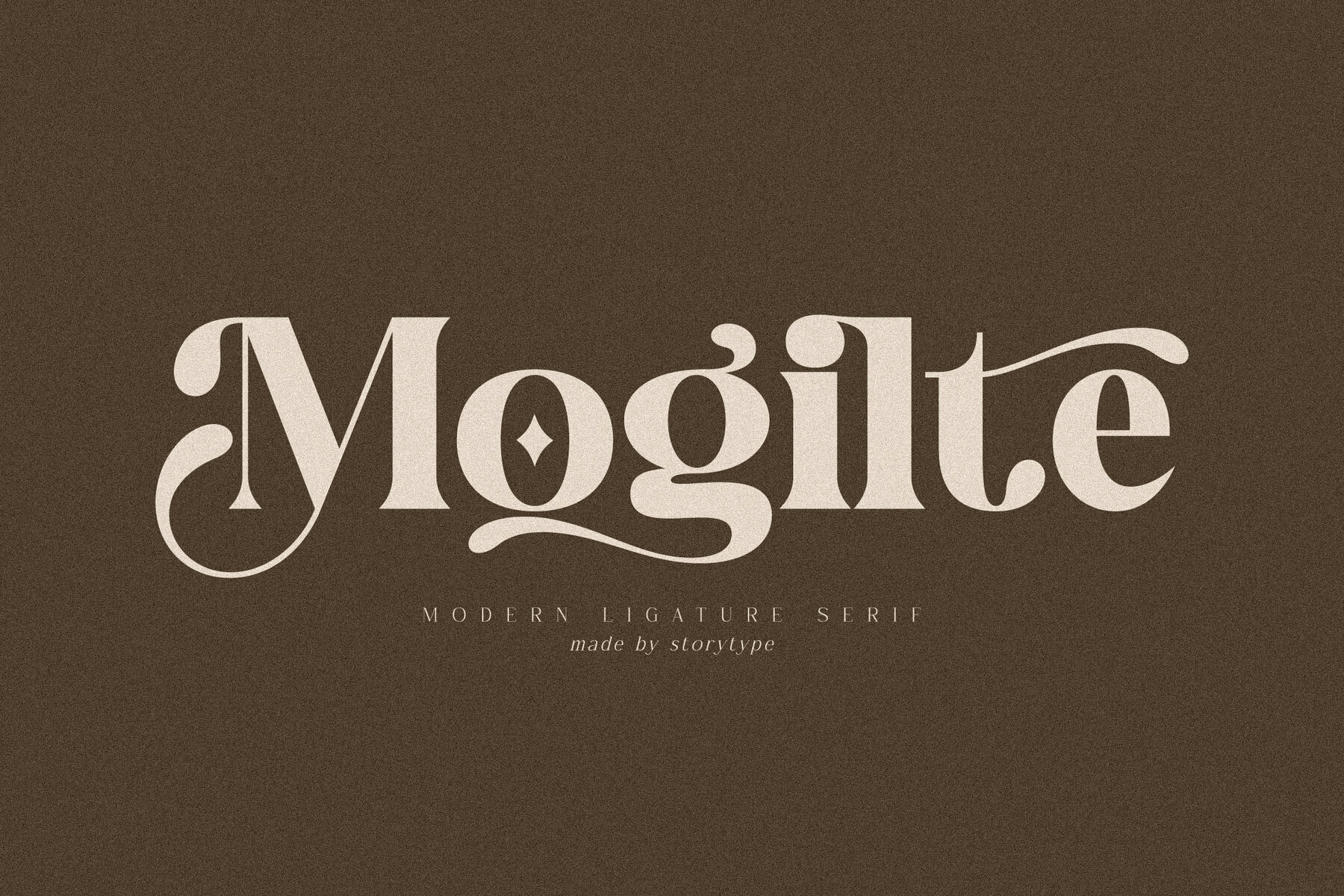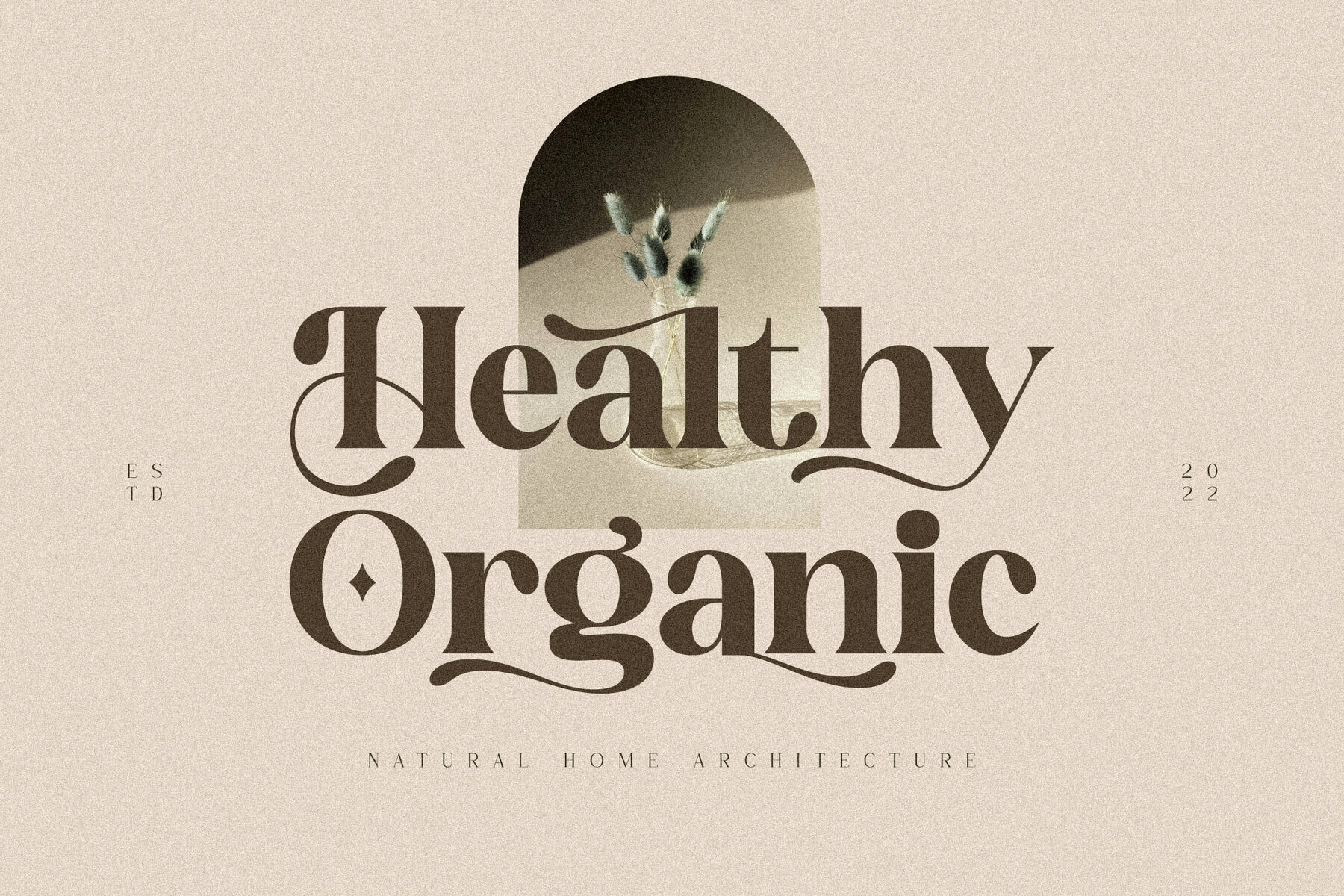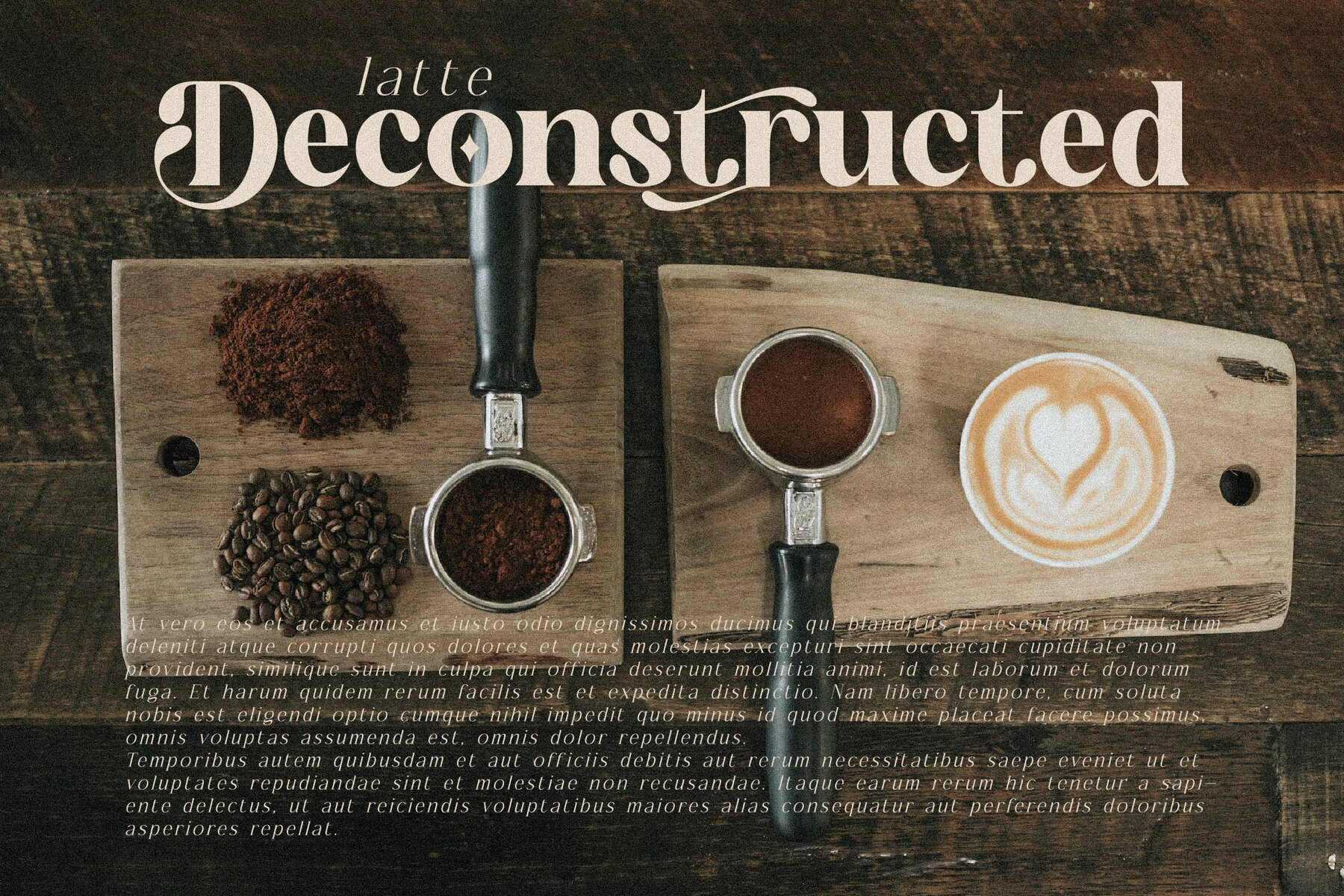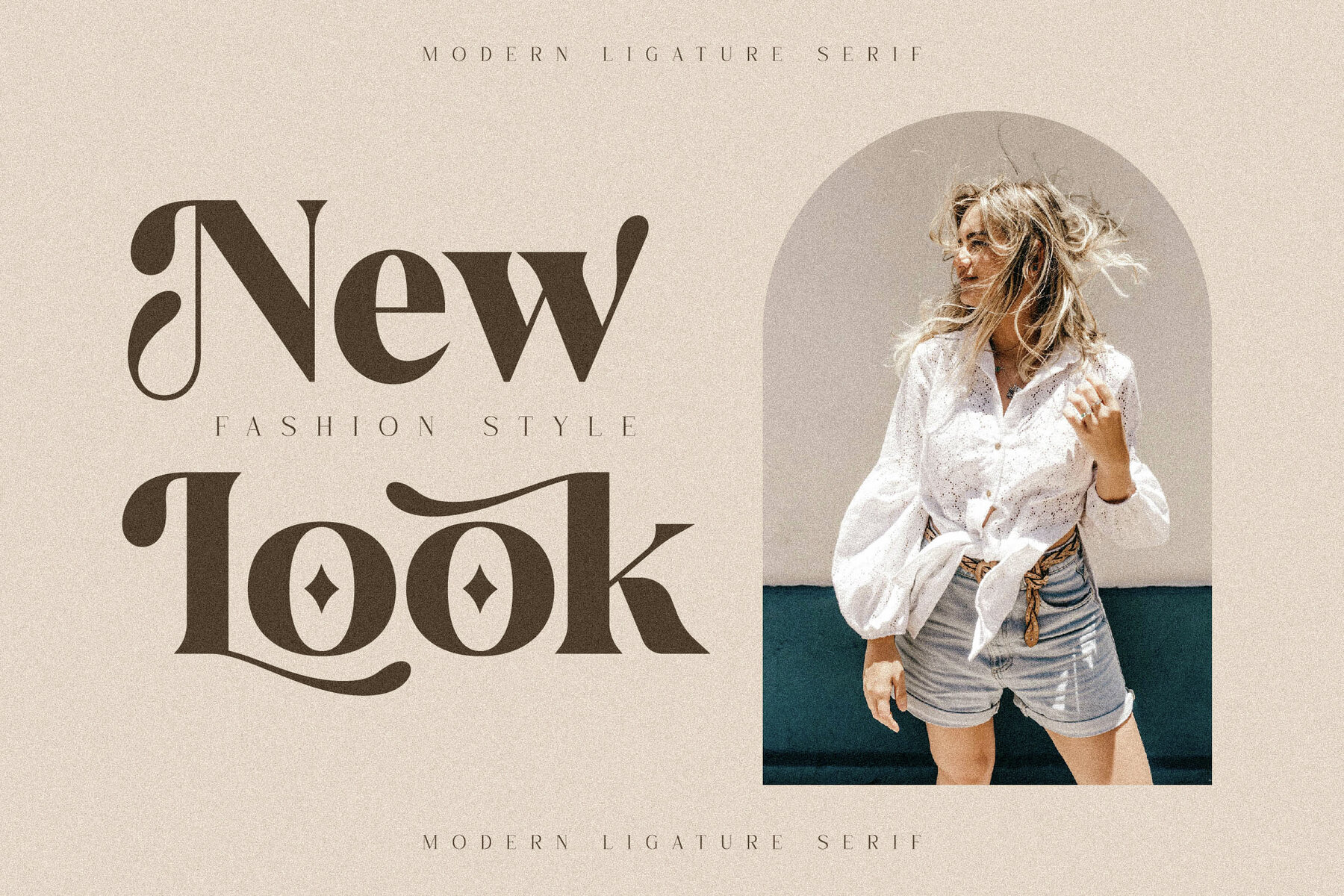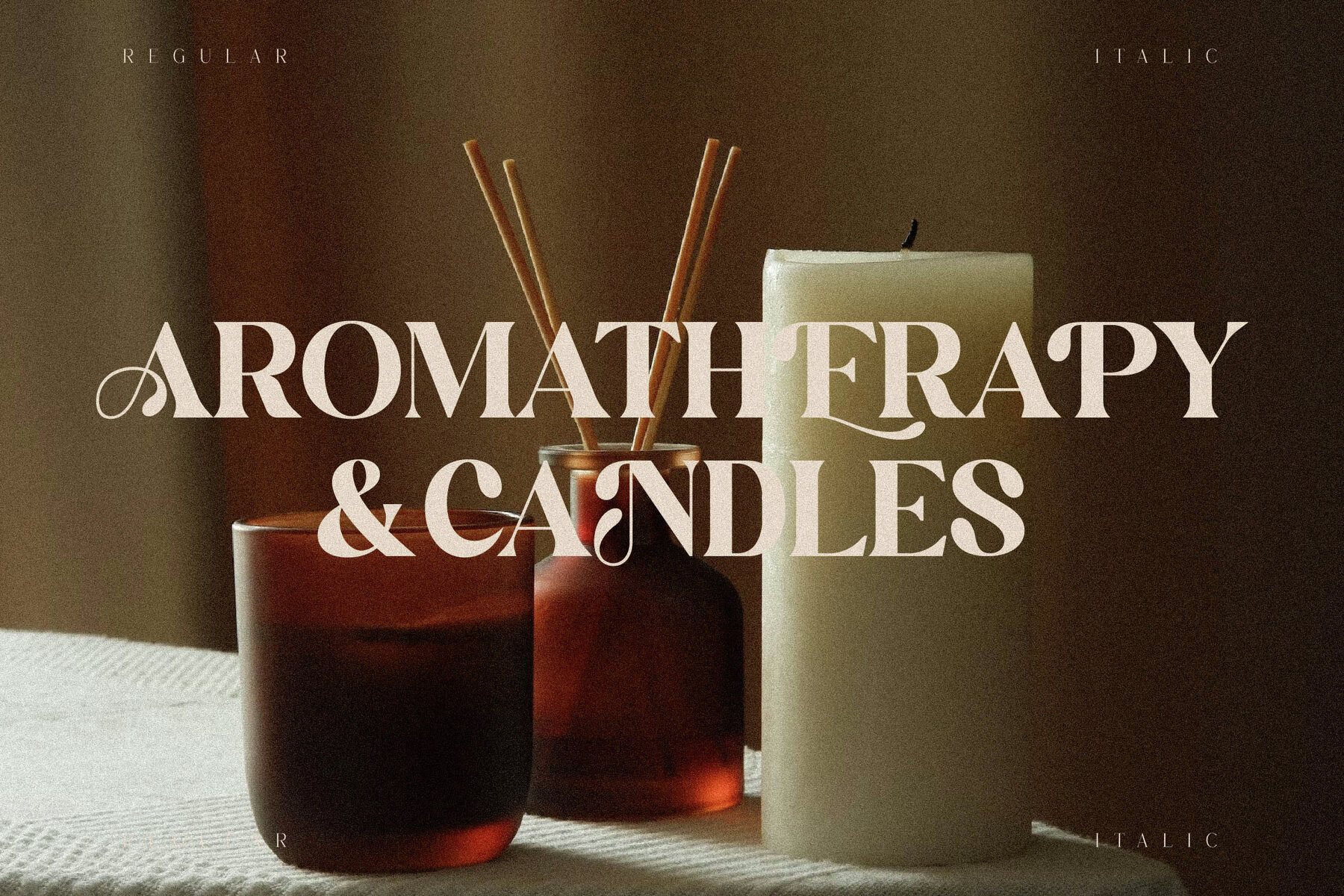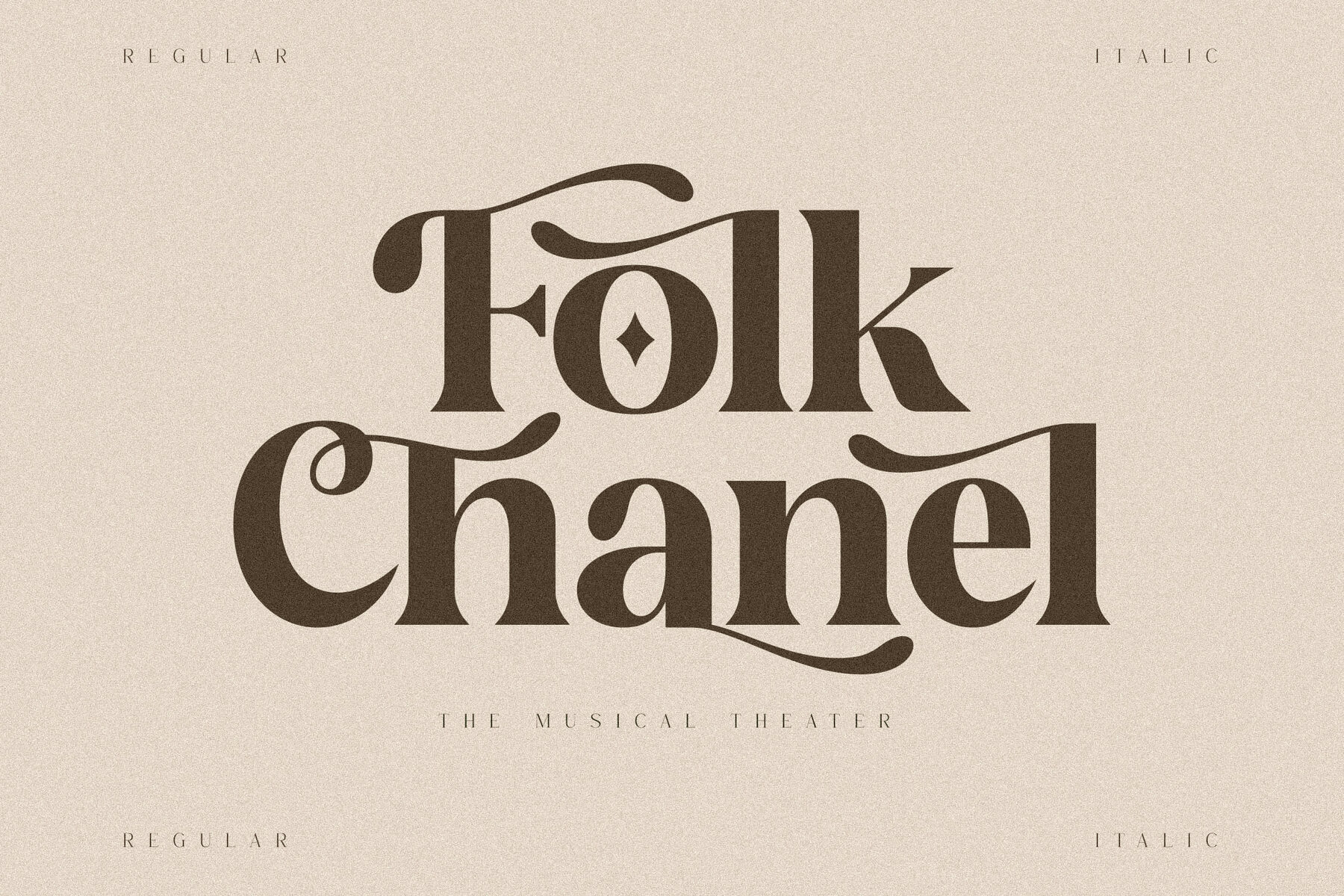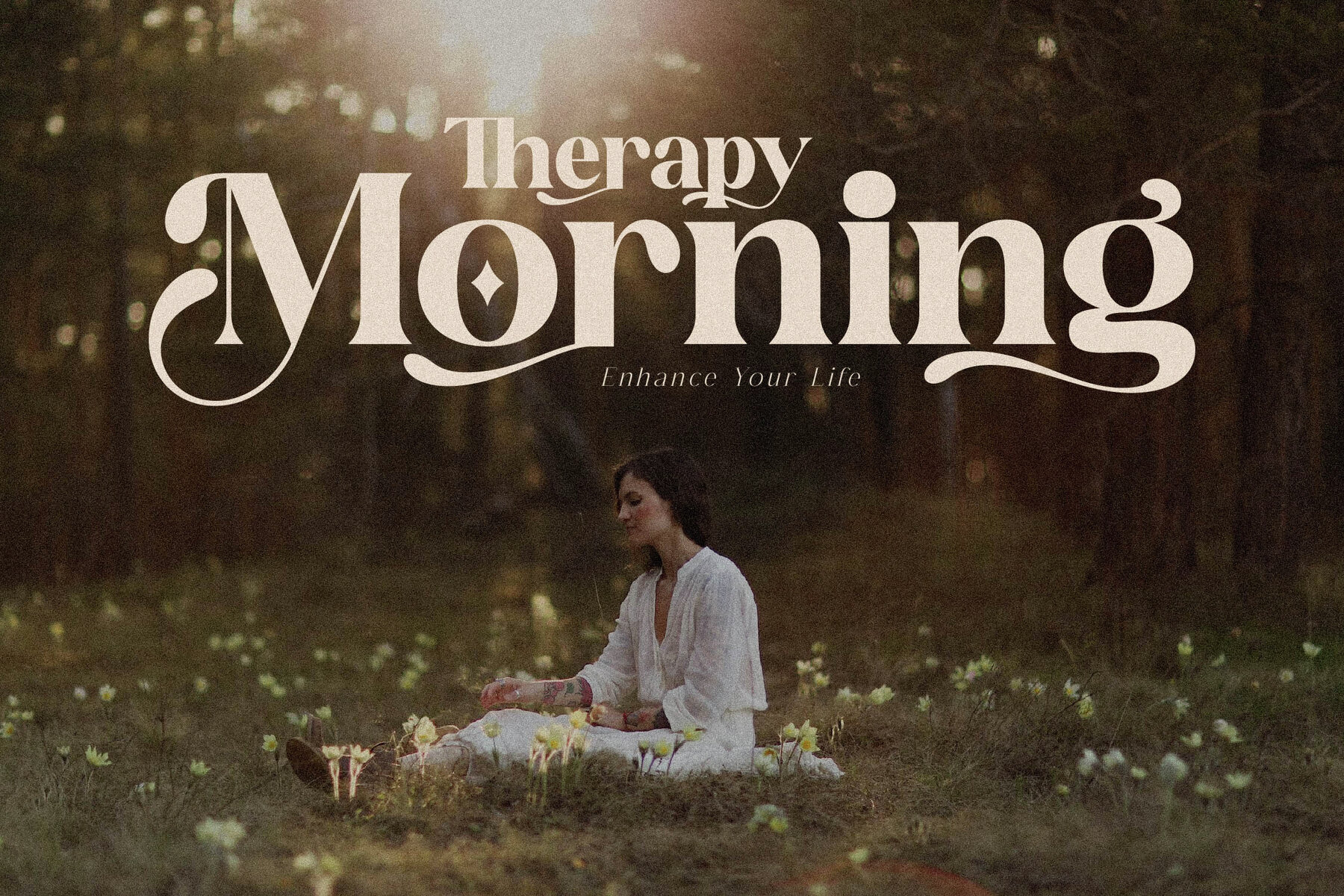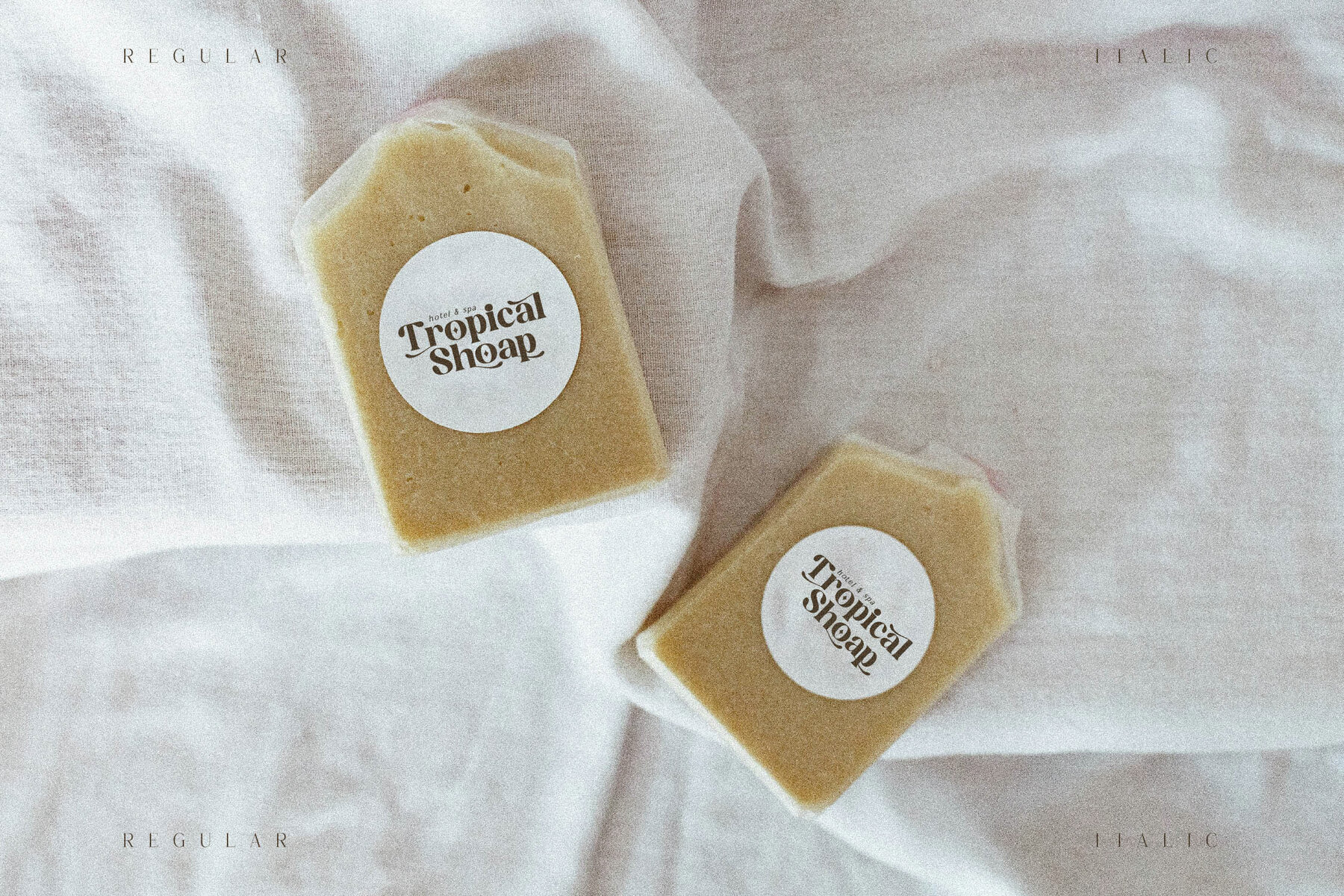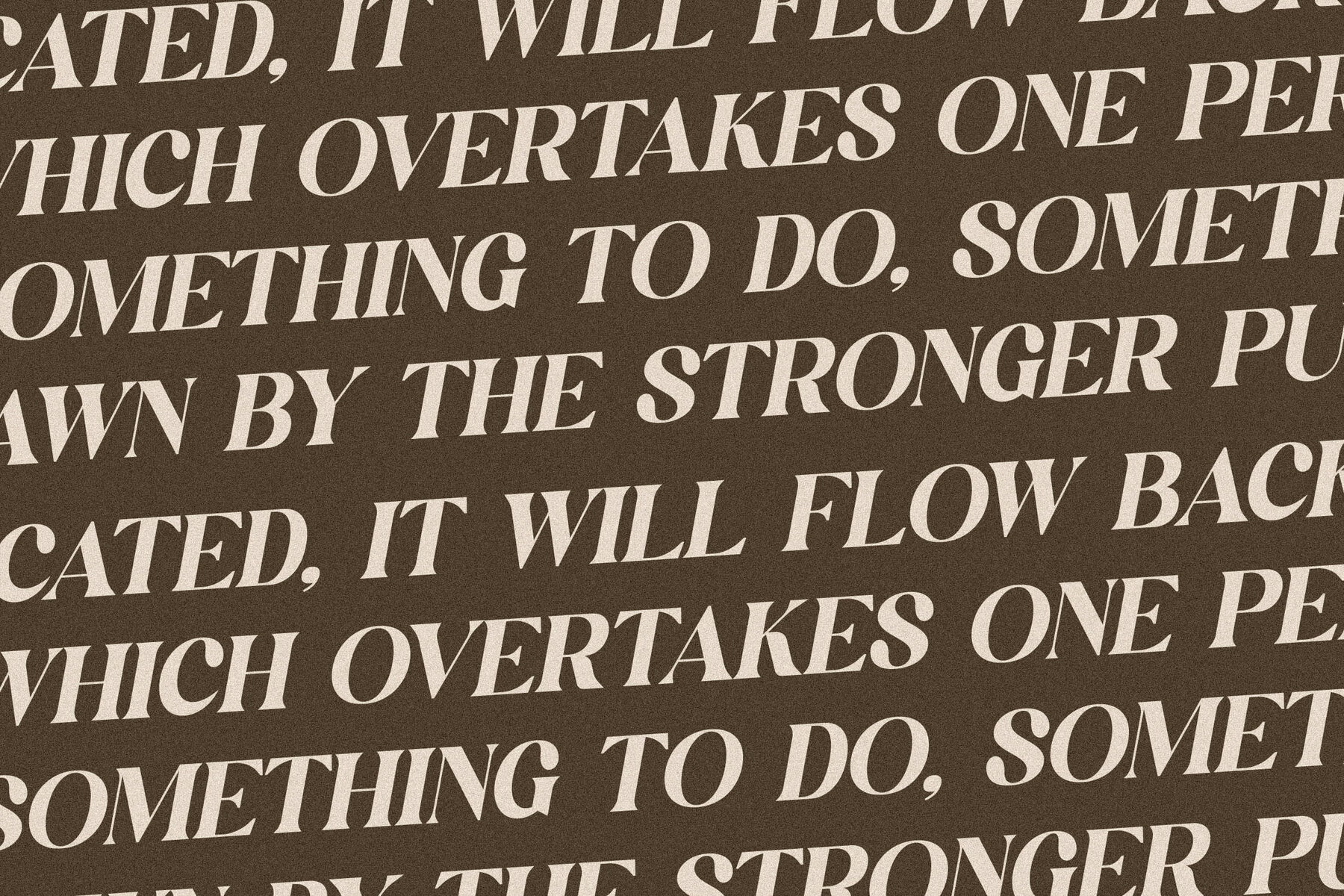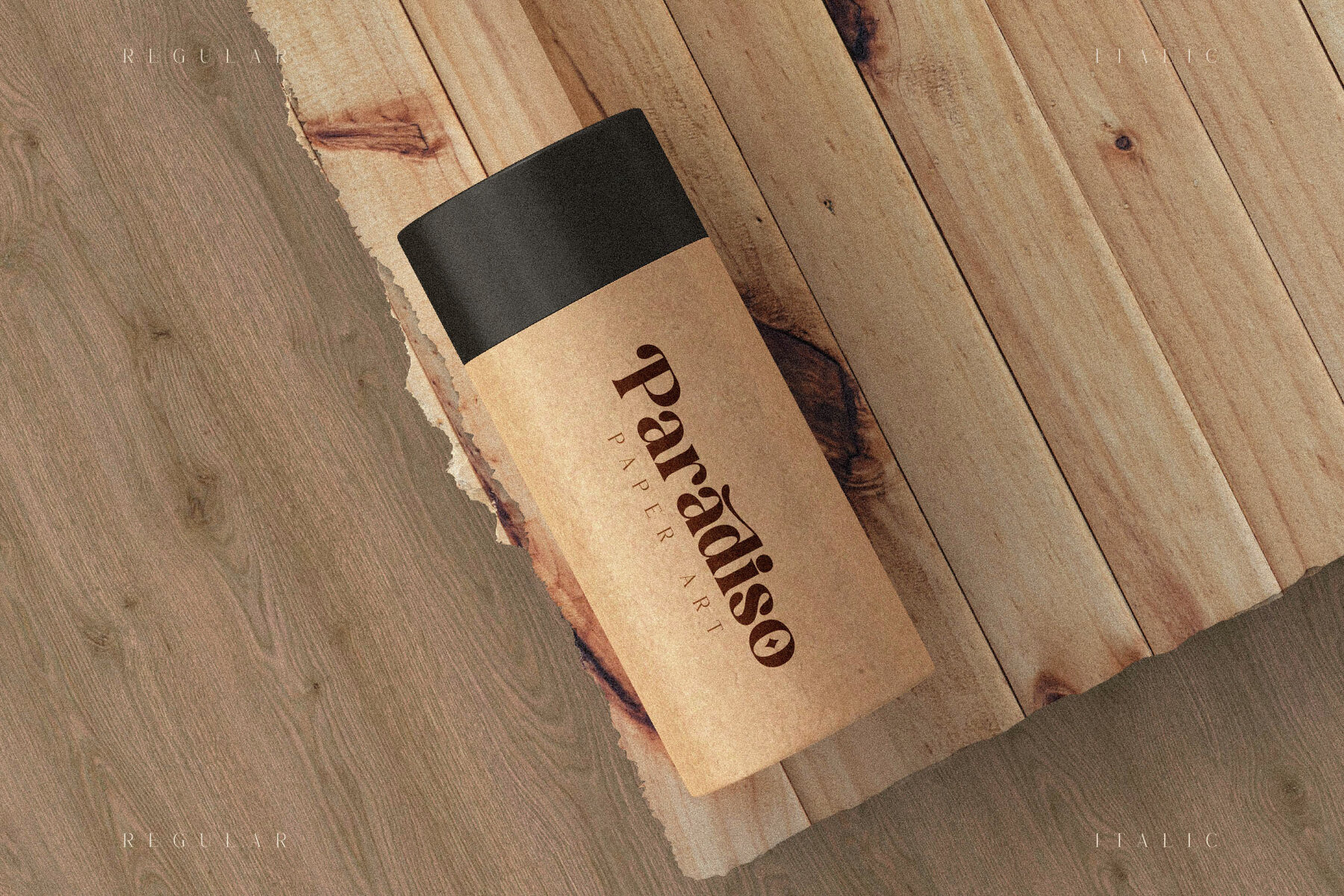
Mogilte Font
Introducing Mogilte, a sophisticated serif typeface from Storytype Studio that marries classic elegance with a contemporary edge. With its distinct style and refined look, Mogilte is the perfect font choice for luxury branding, be it logos, fashion magazines, book or movie titles, or stylish quotes. Its aesthetic versatility makes it a must-have for any designer.Mogilte Typeface